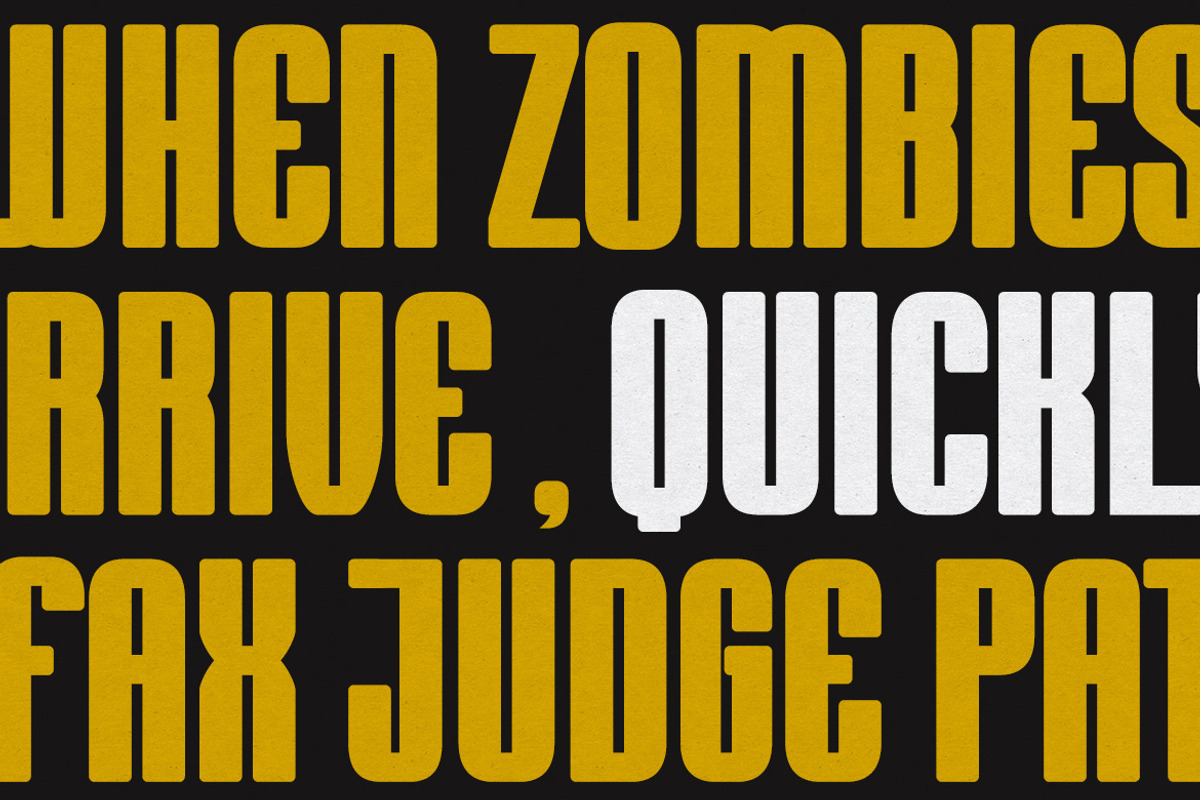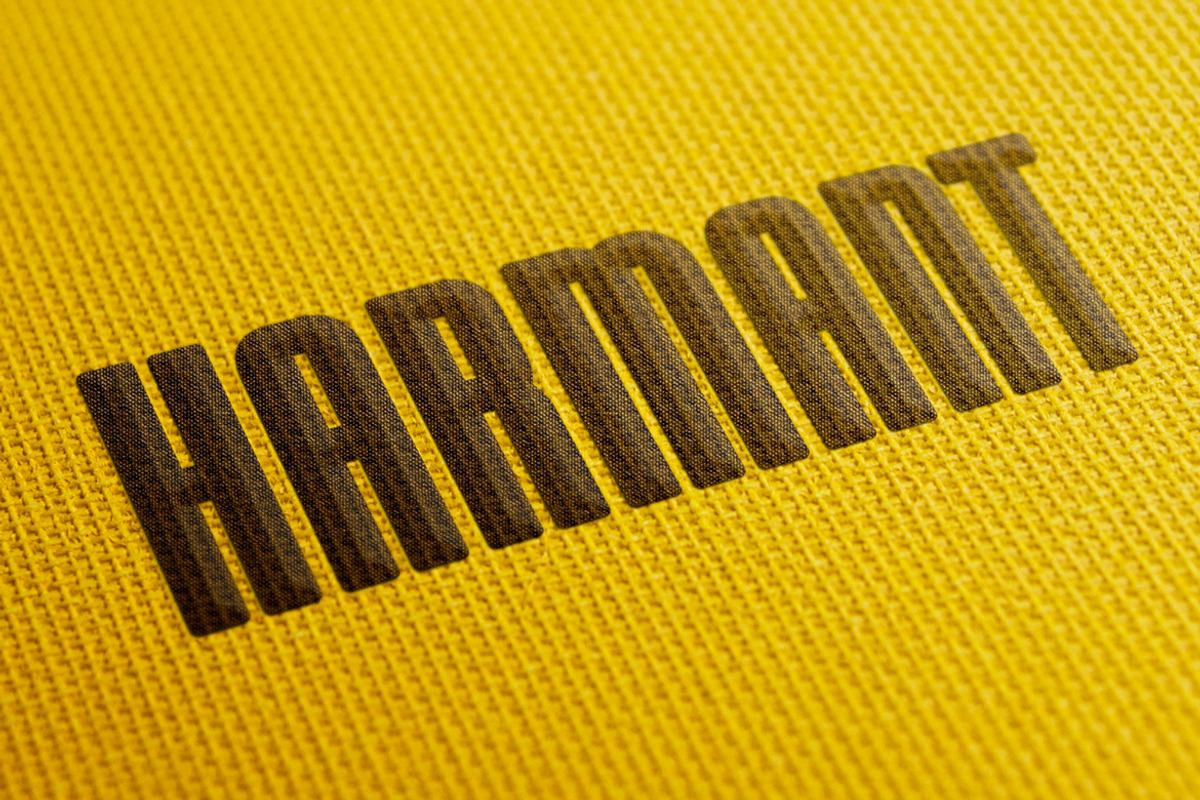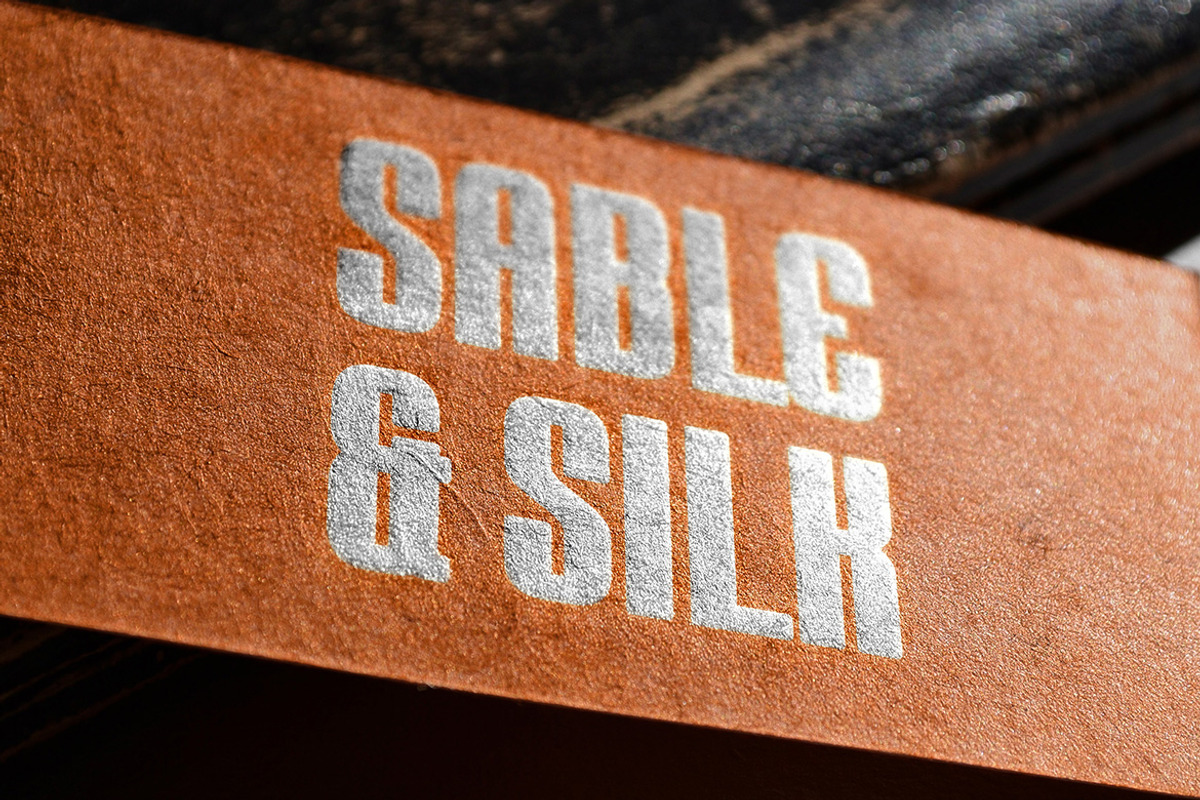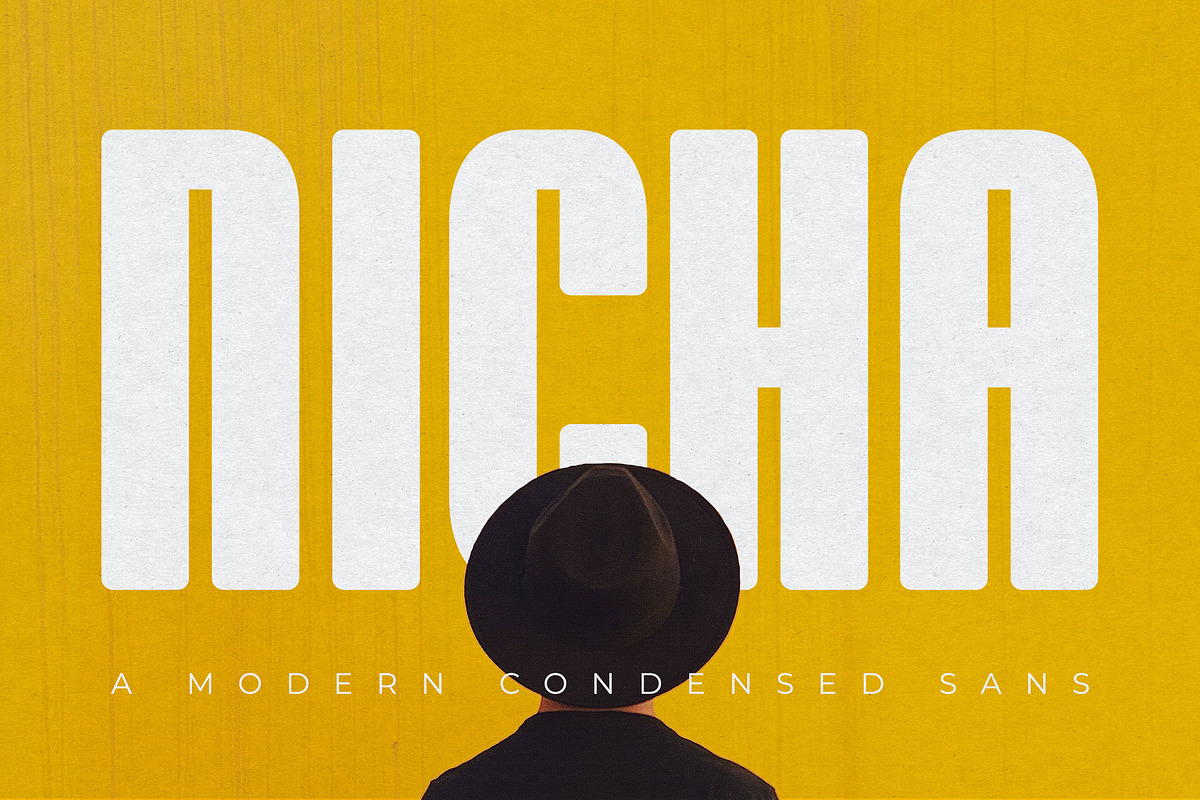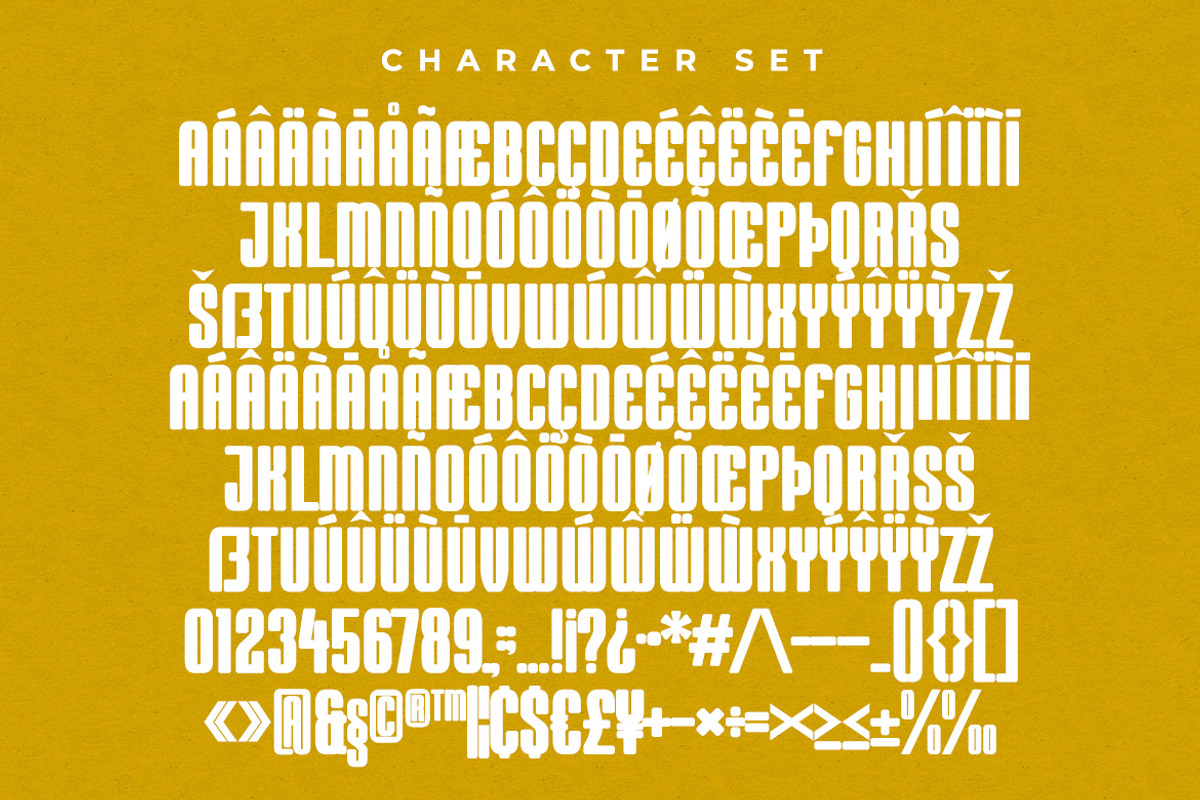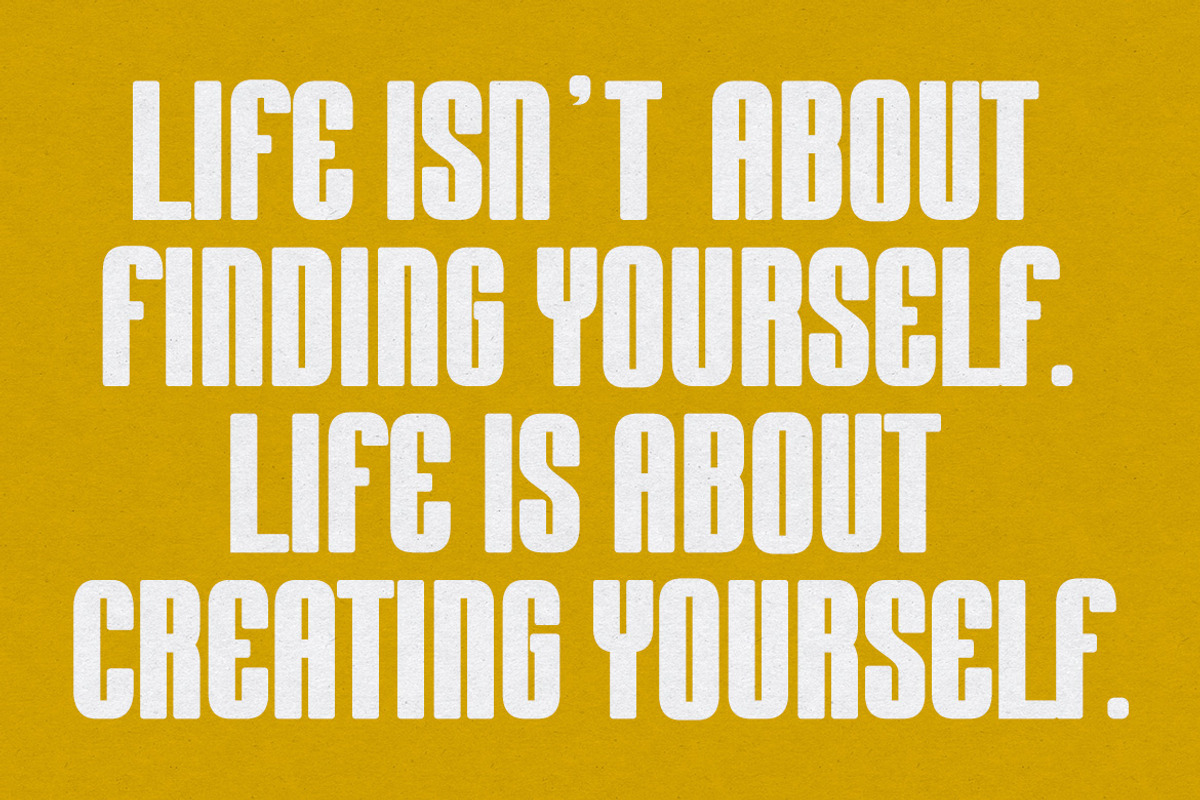
Nicha - Condensed Sans
Introducing Nicha - Modern Condensed Sans. Nicha is a modern and simple font with unique style, best used as a display for headings, logos, branding, magazines, product packaging and invitations.